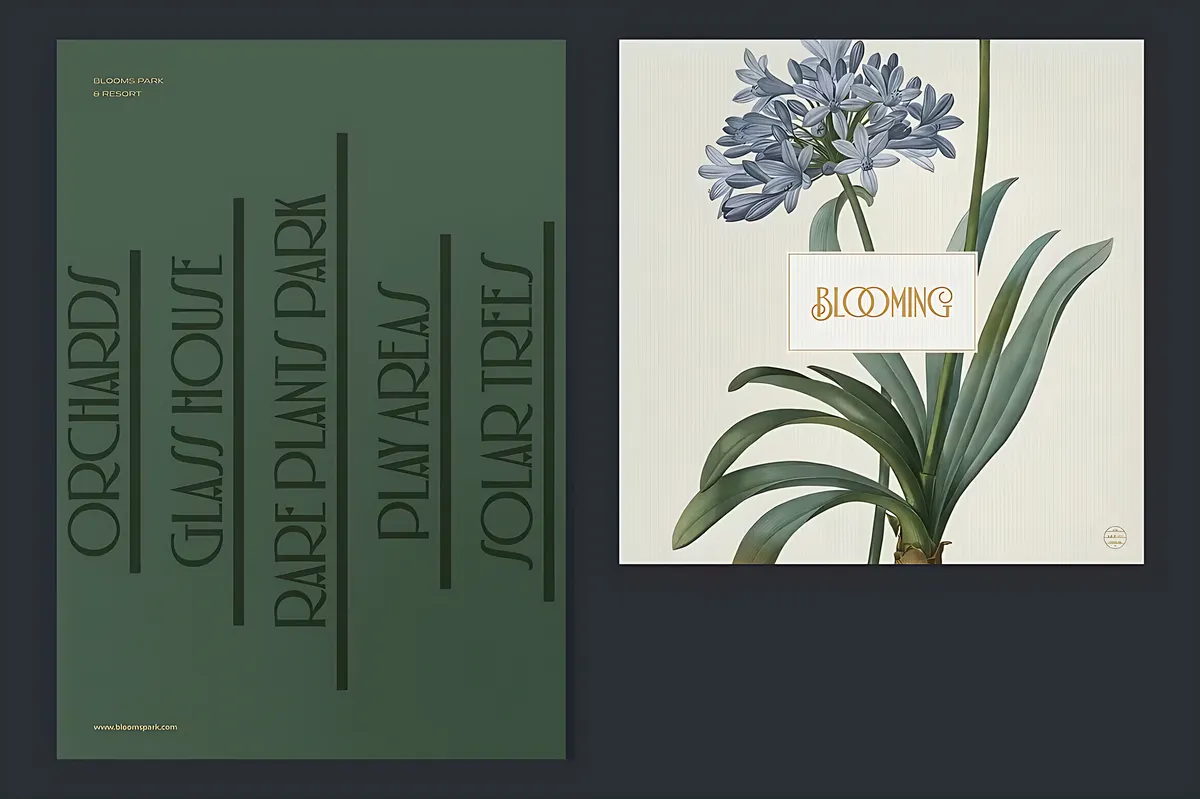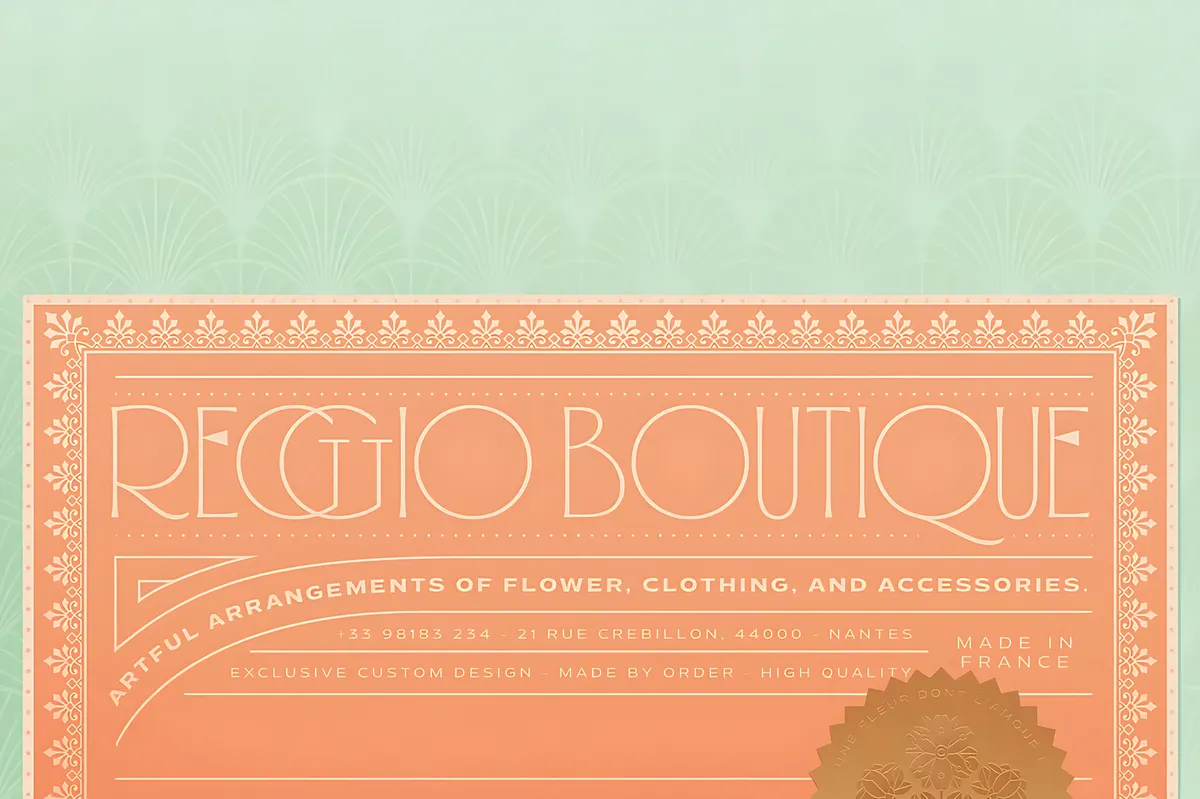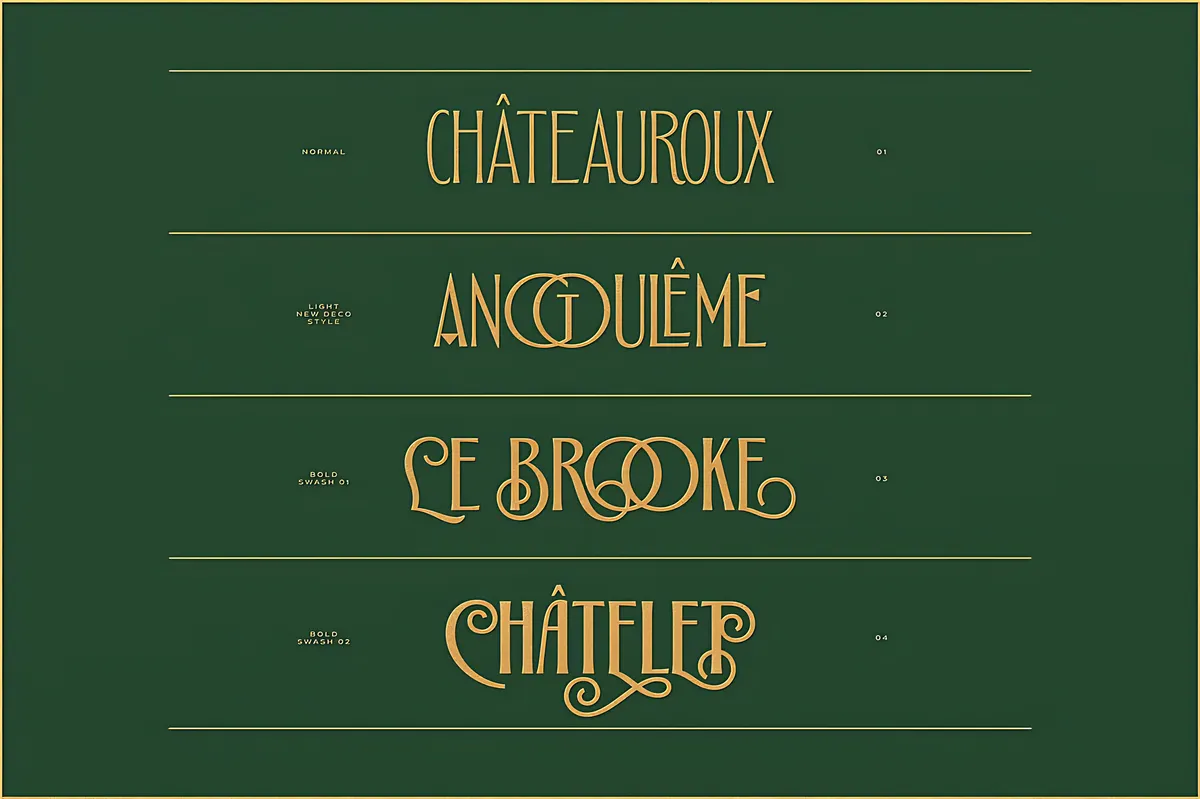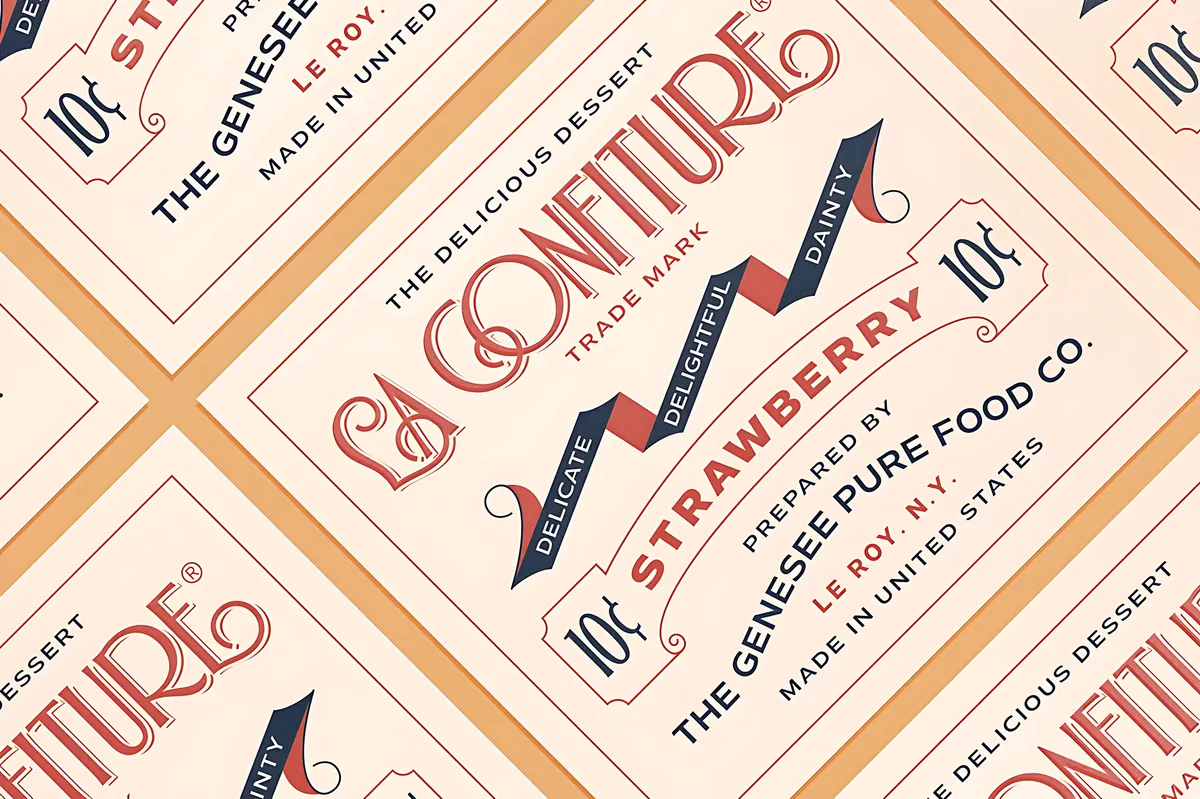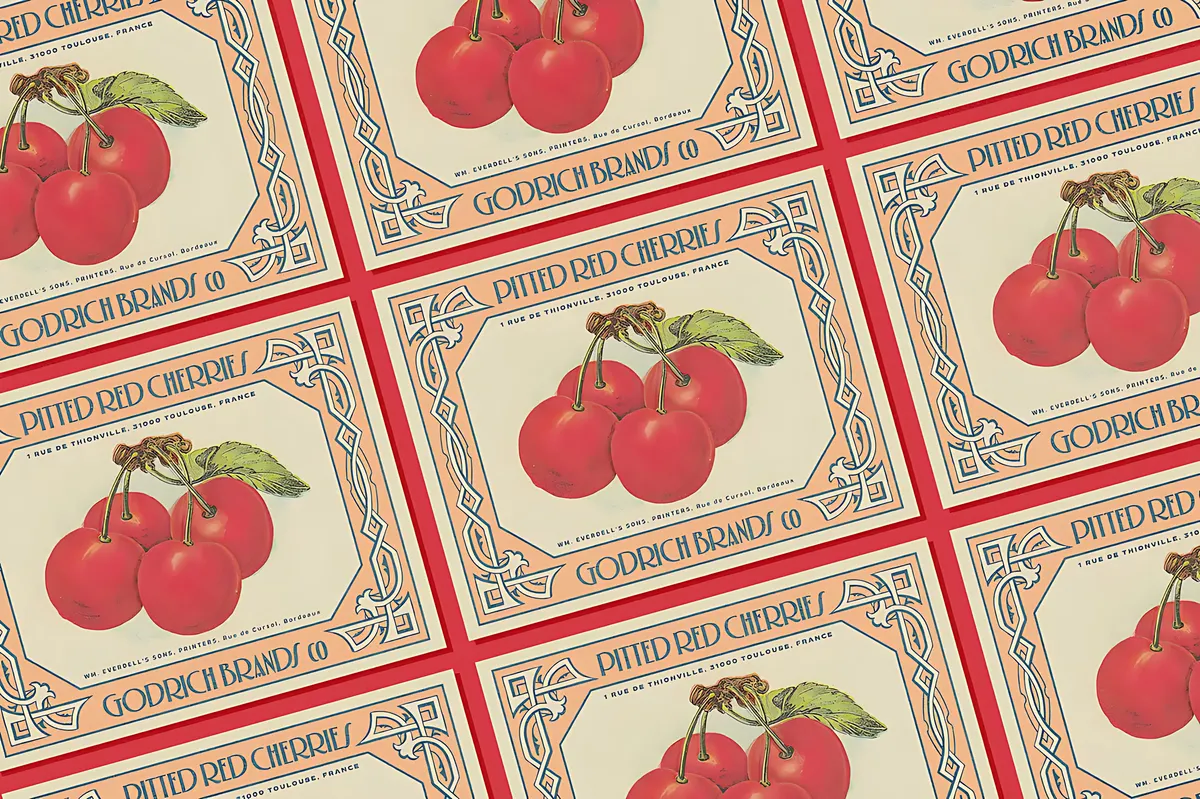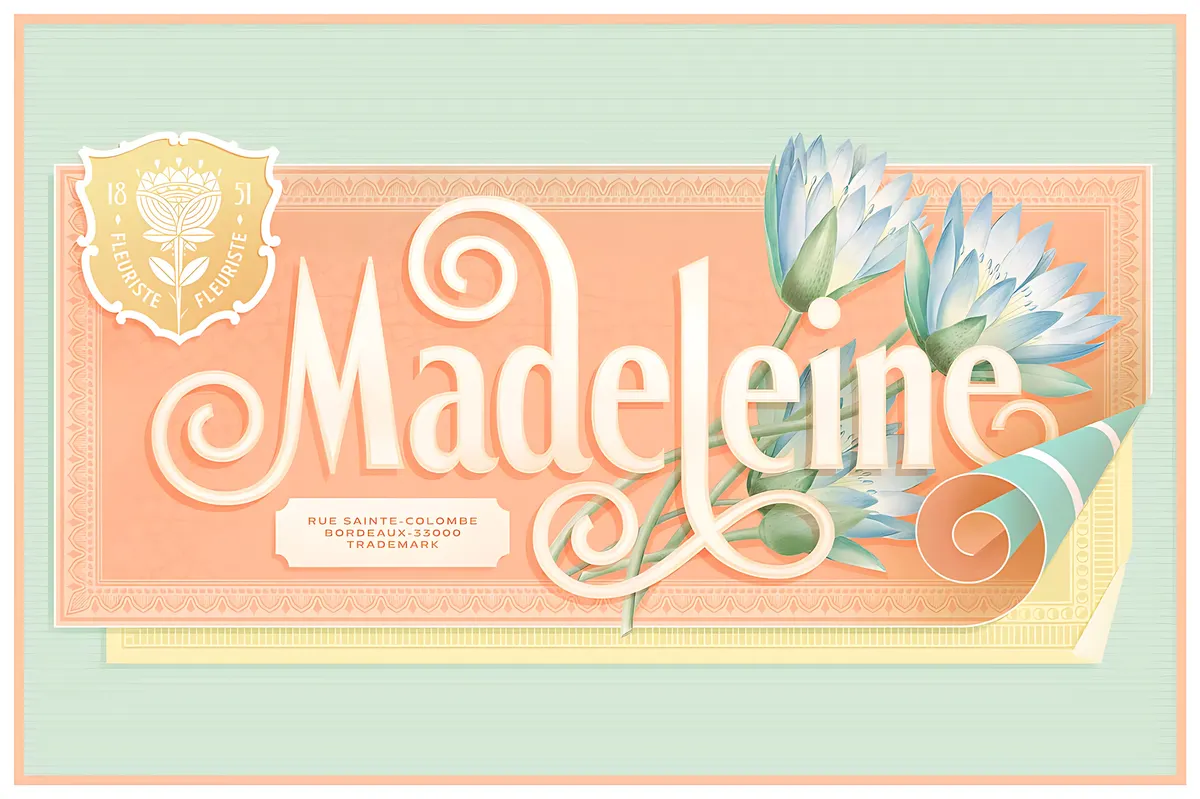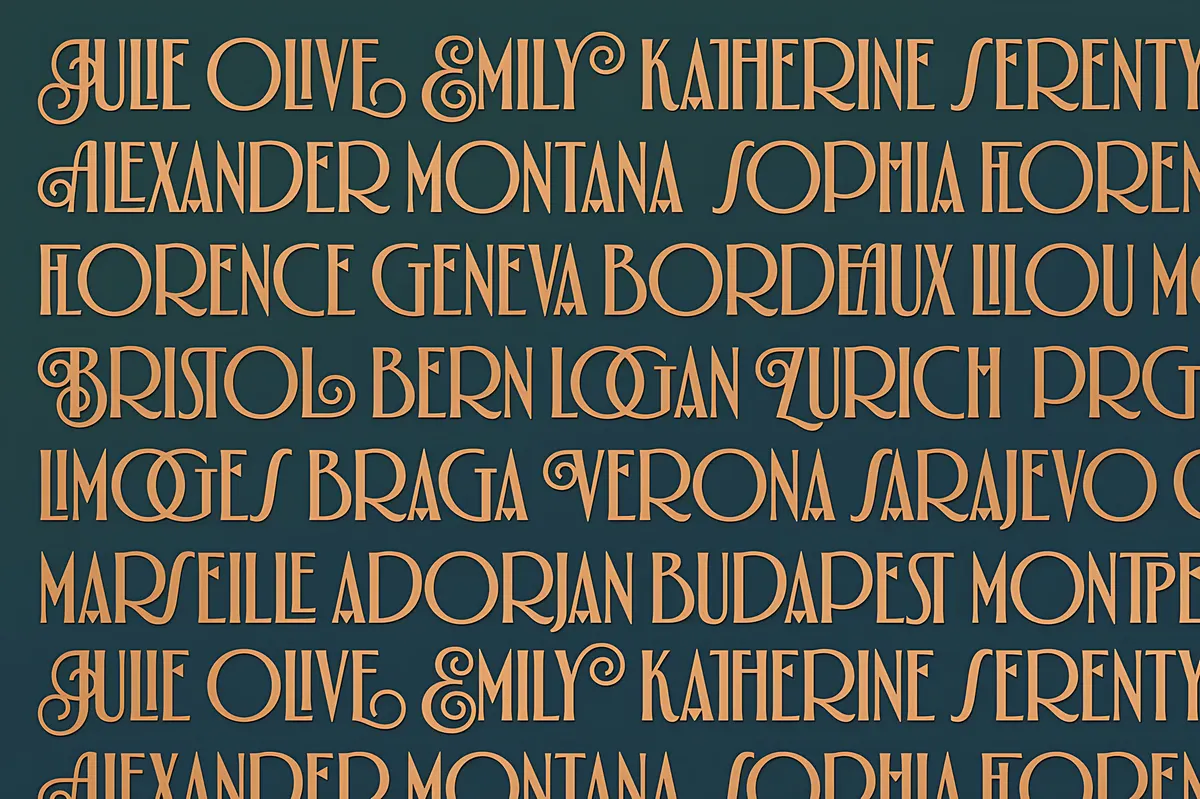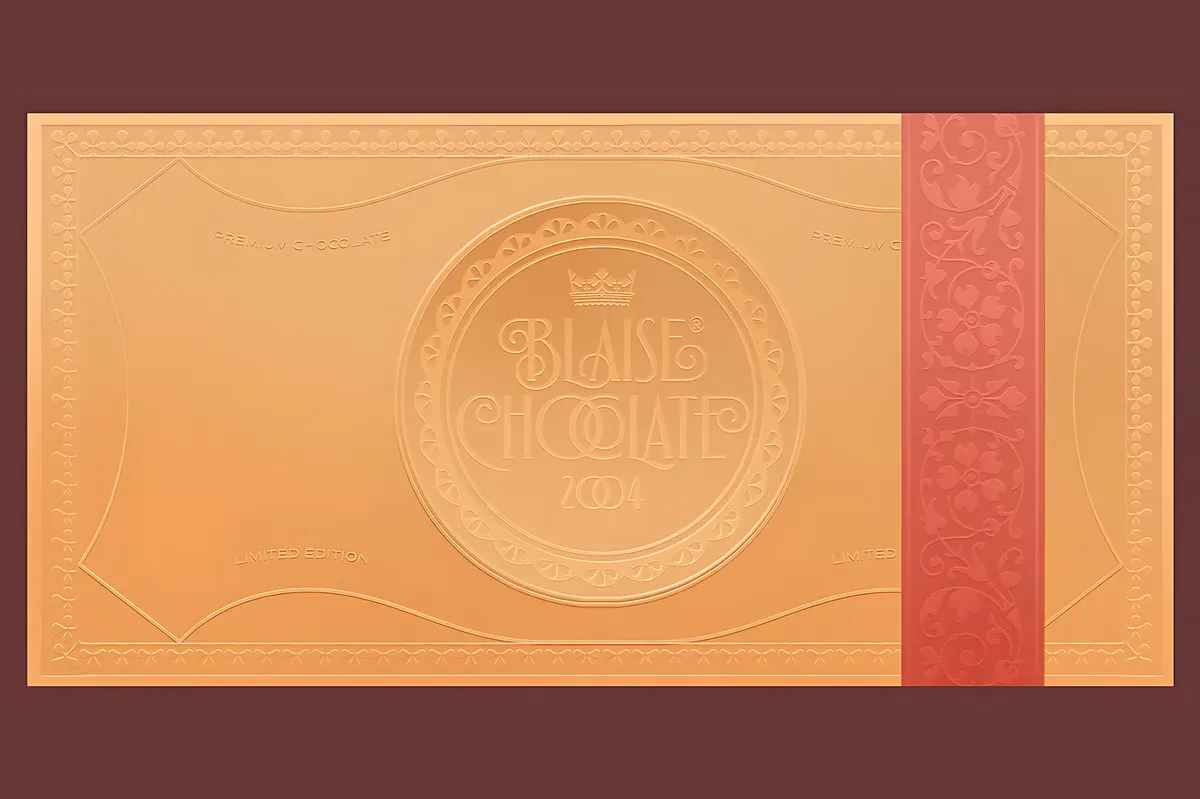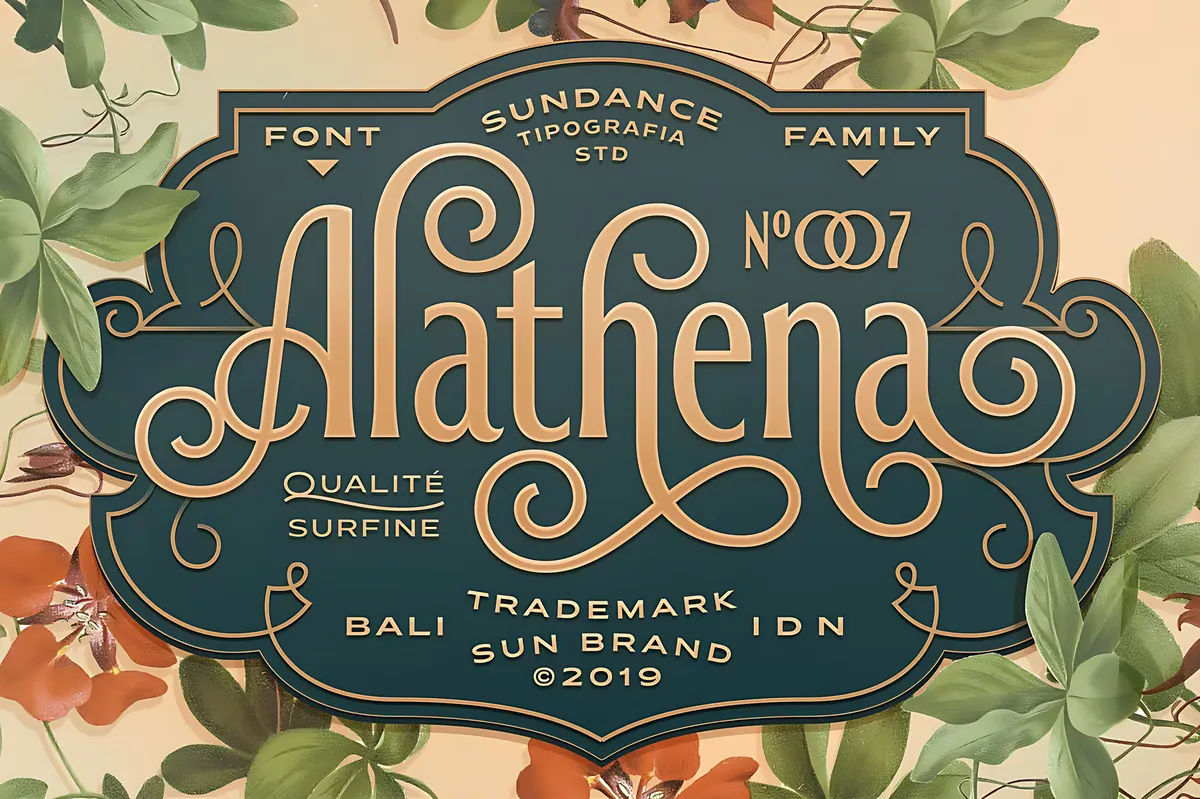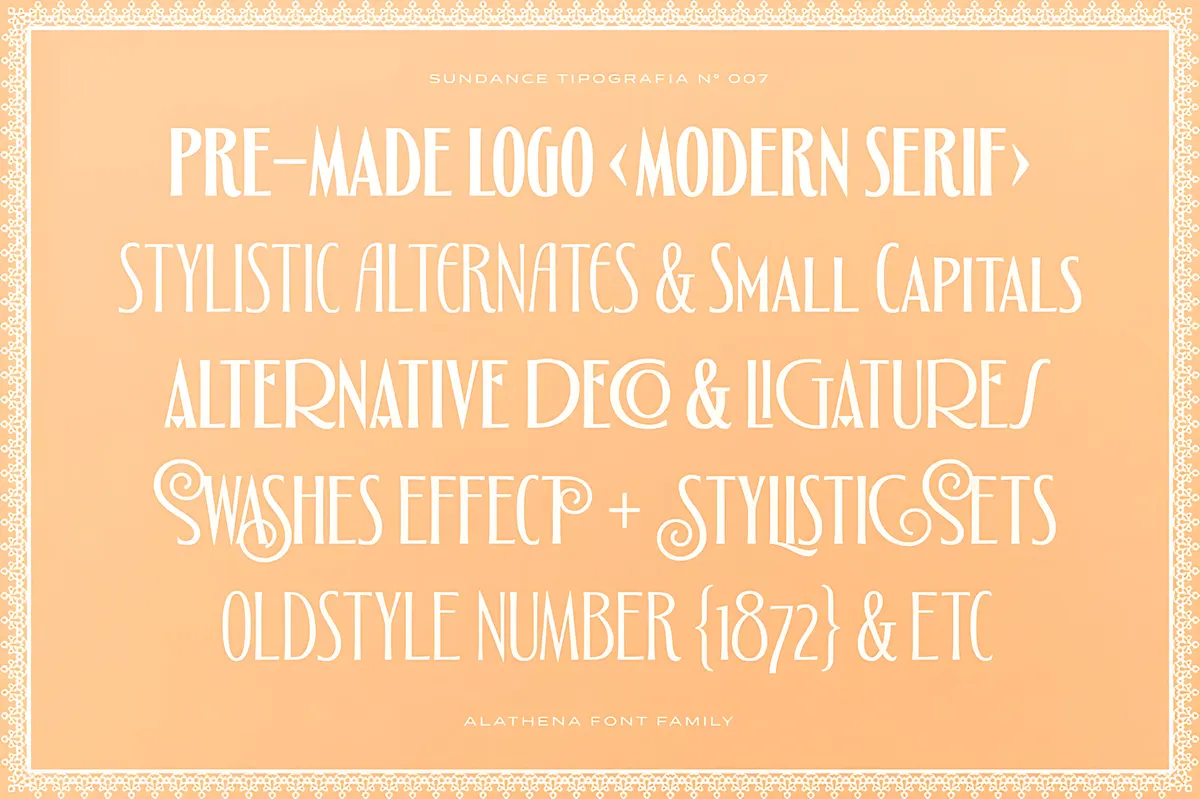
Alathena Font Family
Alathena lives in the twenty-five years when French graphic style was leaving Art Nouveau and arriving at Art Deco: apothecary labels, boutique fascias, chocolate wrappers, and confiture jars lettered by hand. The capitals are tall and narrow with a high waist, hairline contrast, and small pointed spurs where a serif would sit. Coiled swashes unwind from the caps and from final letters, and pairs like OO, CC, and GG lock into single ligatures, which is where this Art Deco display font family gets its harder-edged half.
Six weights run from Thin to Extra Bold, each with matching small caps, so a wordmark and its supporting line hold together. The character set reaches 2,300+ glyphs, with over 400 swashes, oldstyle figures, a full f-ligature set, 20+ discretionary ligatures, and automatic fractions and ordinals.
Usage: packaging and labels, branding, logos, book covers, title pages, poster design, stationery, and invitations.
- 6 weights: Thin, Extra Light, Light, Regular, Bold, Extra Bold;
- two stylistic directions: swash alternates & deco alternates;
- matching small caps in every weight;
- oldstyle figures;
- full f-ligature set & 20+ discretionary ligatures;
- automatic fractions & ordinals;
- uppercase & lowercase;